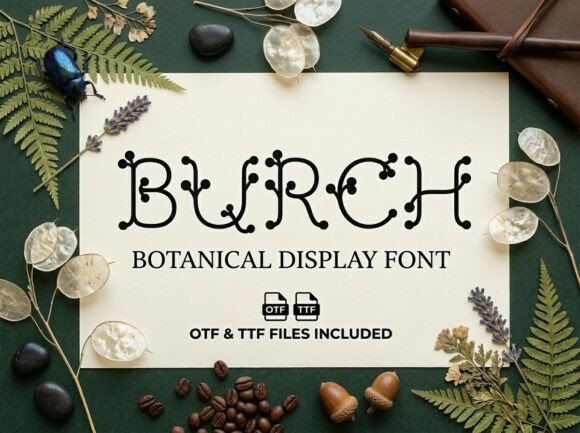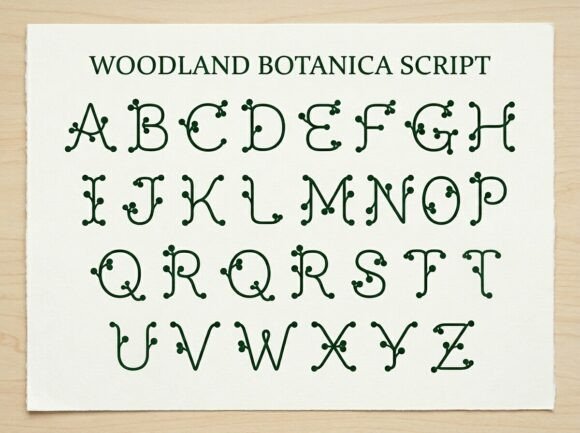
Cultivate a Natural Aesthetic with Burch Font
In the realm of typography, few fonts capture the essence of nature’s whimsy and charm as effectively as Burch. This enchanting display typeface embodies a “whimsical-and-woodland” soul, making it an ideal choice for designers and crafters seeking to infuse their projects with a touch of organic elegance. With its unique blend of monoline, organic letterforms and delicate, hand-drawn details, Burch bridges the gap between forest floor folklore and modern eco-conscious branding.
The Characteristics of Burch Font
Burch’s distinctive design is characterized by rhythmic, hand-drawn “budding” nodes and vine-like terminals that lend an air of natural sophistication to any project. The font’s light structural weight and ethereal personality evoke a sense of wonder and enchantment, perfect for crafting captivating brand identities that resonate with audiences seeking a more organic and sustainable approach.
Ideal Applications for Burch Font
Burch’s versatility and unique charm make it an excellent choice for a variety of design applications, including:
- Independent Apothecary Identities: Burch’s natural, earthy feel and whimsical charm make it an ideal choice for crafting distinctive brand identities that reflect a commitment to holistic wellness and sustainability.
- Boutique Herbalist Logos: The font’s delicate, organic letterforms and botanical-inspired details evoke the artisanal spirit of boutique herbalism, perfect for creating eye-catching logos that stand out in the market.
- Artisanal Garden Packaging: Burch’s enchanting, hand-drawn aesthetic adds a touch of magic to garden packaging, elevating product labels and branding materials that reflect a passion for gardening and sustainable living.
- Social Media Headers: With its high-impact, “botanical-and-bewitching” personality, Burch is perfect for crafting social media headers that capture the imagination and inspire engagement.
Why Choose Burch Font?
In today’s design landscape, standing out from the crowd requires more than just a visually appealing aesthetic – it demands a unique and compelling brand story. Burch font offers designers and crafters a distinctive typographic solution that:
- Evokes a sense of natural wonder: Burch’s organic, hand-drawn design elements transport audiences to a world of enchantment and curiosity, sparking imagination and creativity.
- Embodies eco-conscious values: The font’s earthy, sustainable aesthetic resonates with audiences seeking environmentally responsible and socially conscious brands.
- Offers versatility: Burch’s light structural weight and adaptable design make it suitable for a wide range of applications, from delicate packaging labels to bold social media headers.
Tips for Working with Burch Font
To get the most out of Burch font, consider the following design tips:
- Experiment with color: Burch’s natural aesthetic pairs beautifully with earthy tones, such as sage green, sandy beige, and mossy stone. Don’t be afraid to explore different color palettes to find the perfect fit for your project.
- Play with texture: Add depth and visual interest to your design by incorporating natural textures, such as wood grain, leaf patterns, or watercolor backgrounds.
- Balance with simplicity: While Burch font is undoubtedly eye-catching, it’s essential to balance its ornate details with simpler design elements to maintain visual harmony.
Burch font is a captivating display typeface that embodies the essence of nature’s whimsy and charm. With its unique blend of monoline, organic letterforms and delicate, hand-drawn details, Burch offers designers and crafters a distinctive typographic solution for crafting enchanting brand identities, packaging, and social media headers. Whether you’re an independent apothecary, boutique herbalist, or artisanal gardener, Burch font is the perfect choice for cultivating a natural aesthetic that resonates with audiences seeking a more sustainable and eco-conscious approach.